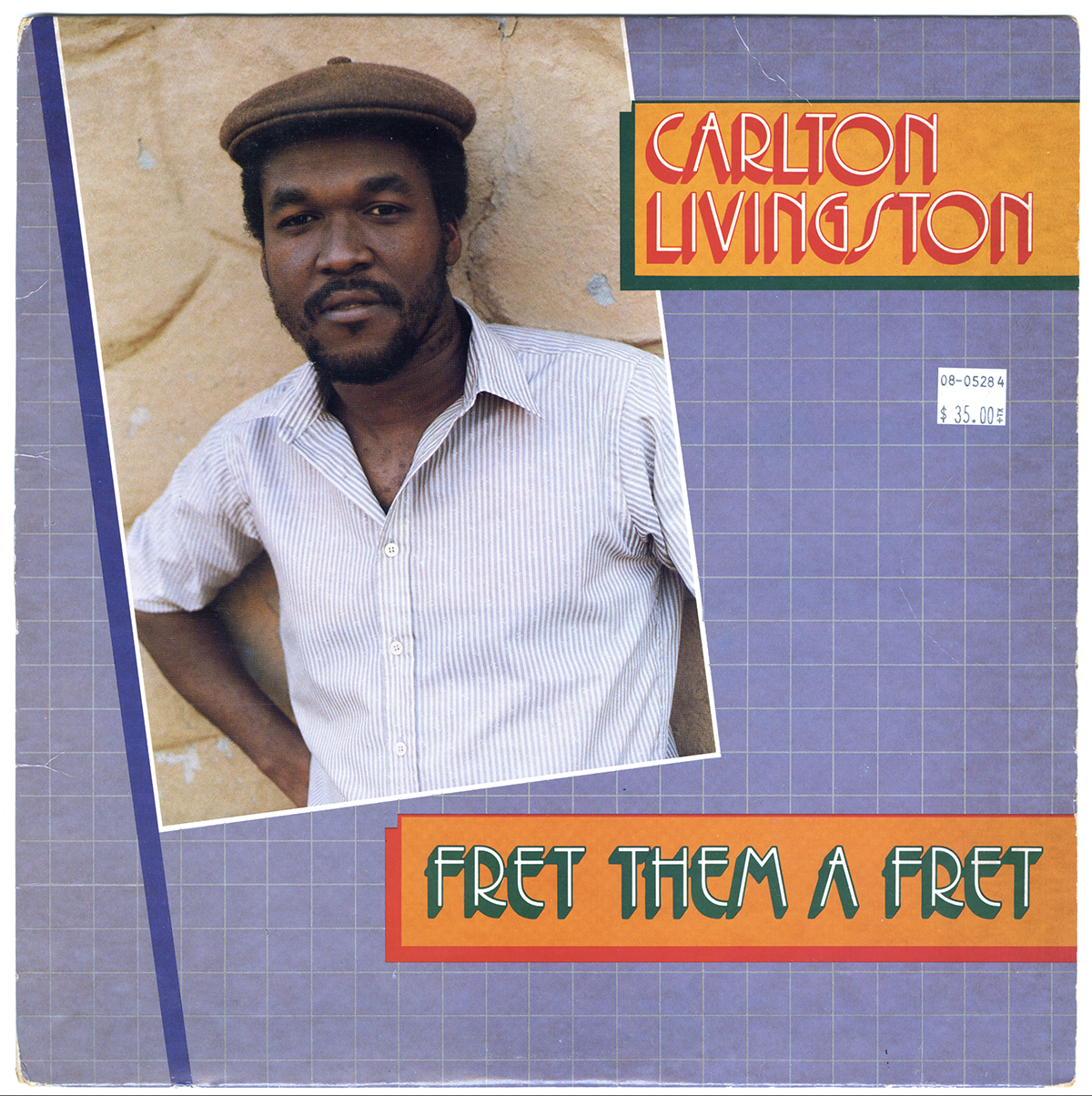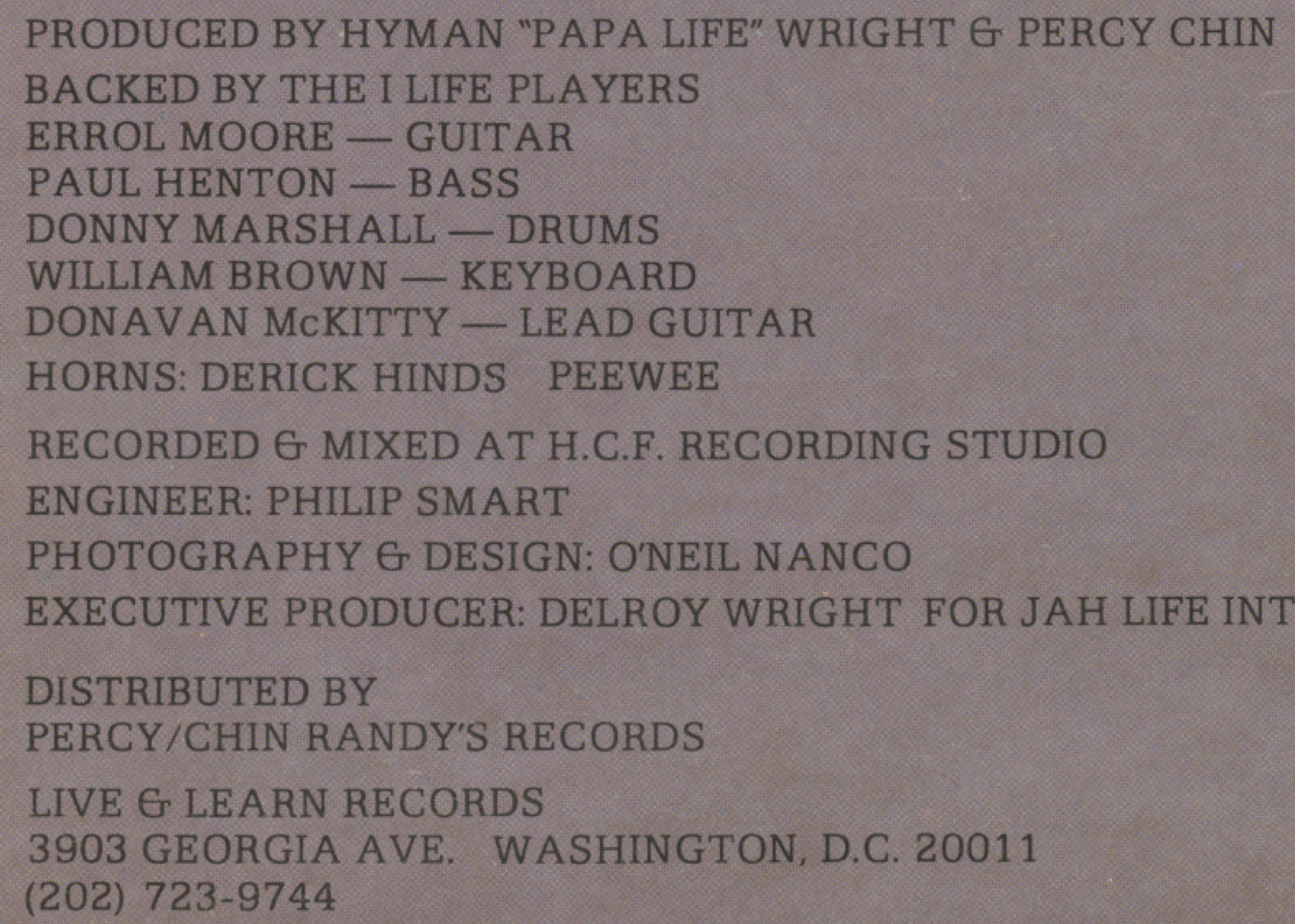
Help identifying Deco-style shadow font from mid 80s album cover (Carlton Livingston)
Looking to ID the font used on this LP jacket which was produced in Jamaica circa 1984. Also hoping to ID the body text on the back cover. Thanks!